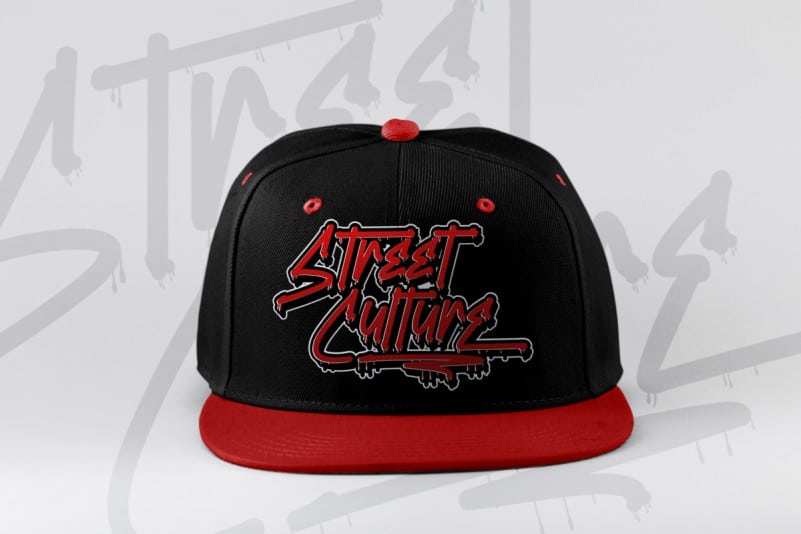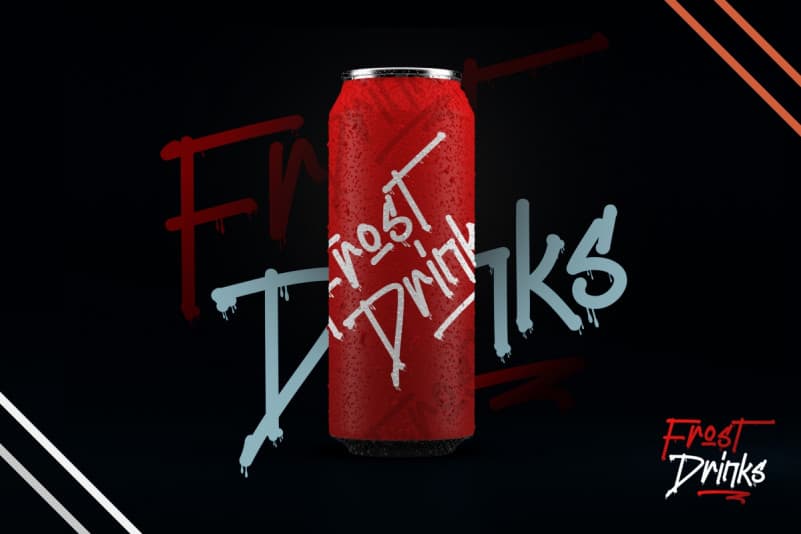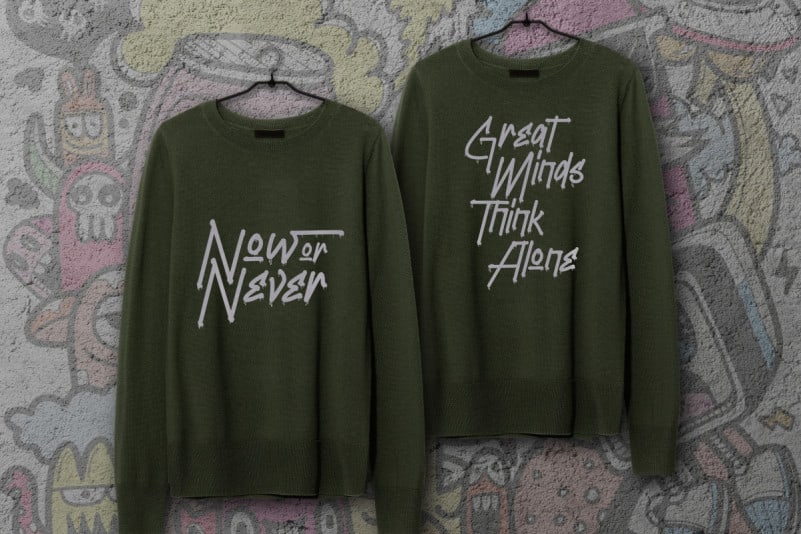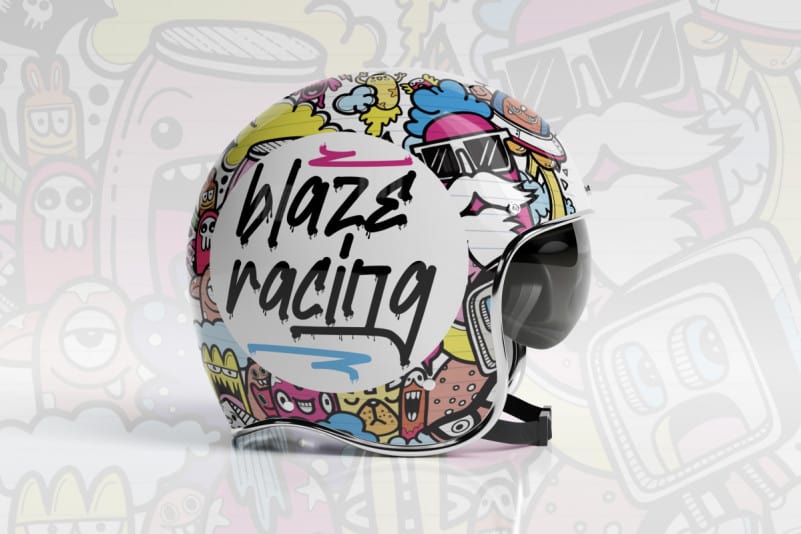
Sterous Display Font
Sterous Display Font is a display font with creative graffiti style. The font was inspired by many street arts and classic artwork. It has a unique artistic graffiti style that will bring the authentic effect to the design. It will also works for games, band cover, horror, mysterious and any related things. Sterous Graffiti Font includes full set of Uppercase and Lowercase Basic Characters, Numerals and Punctuation. Also it contains ligatures to make it awesome. You can also combine two or more styles on the text like we did on the cover, so you will great even more unique and special font. The font is perfect for many projects, headlines, logos, poster, tittle, products, etc